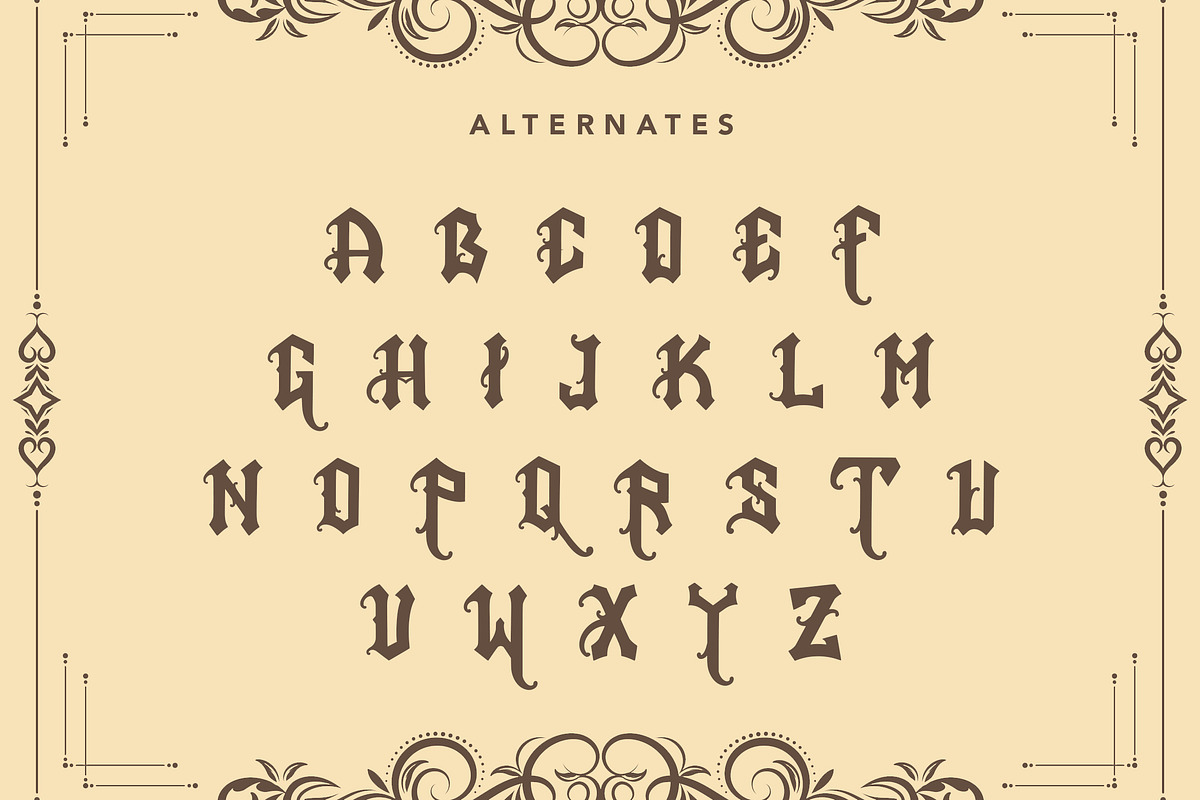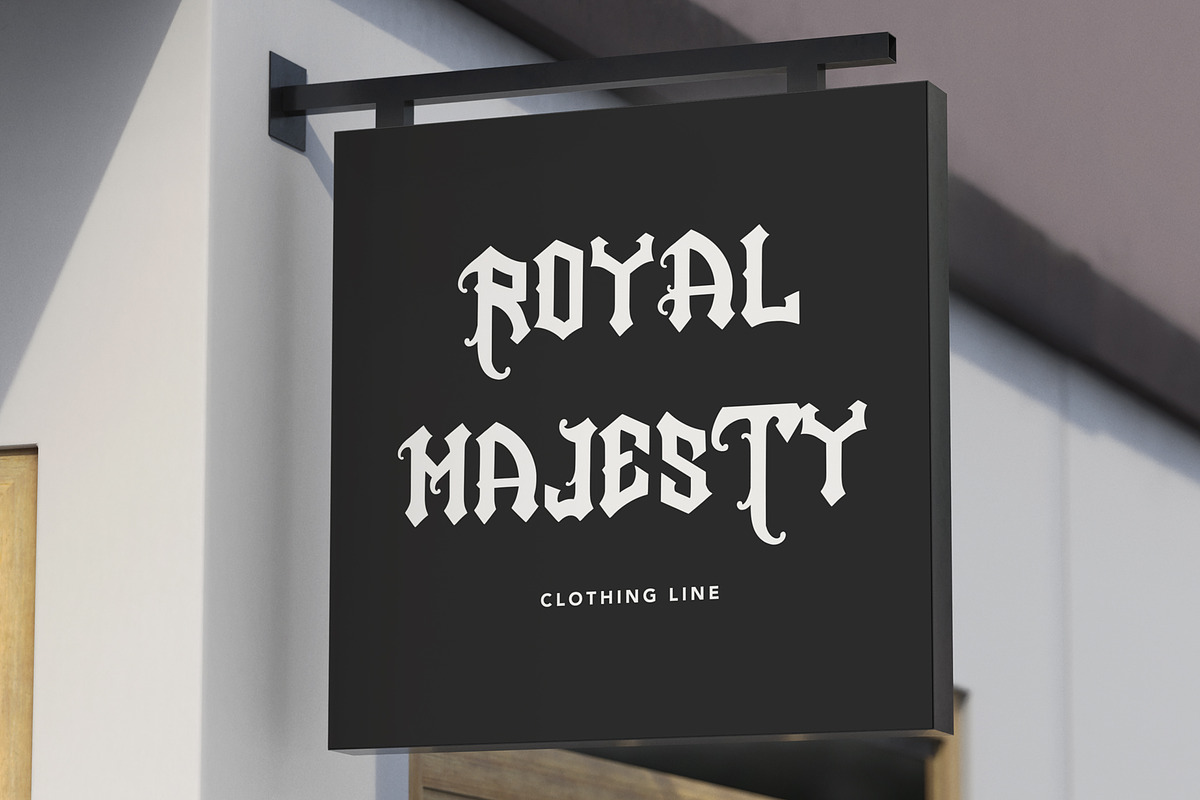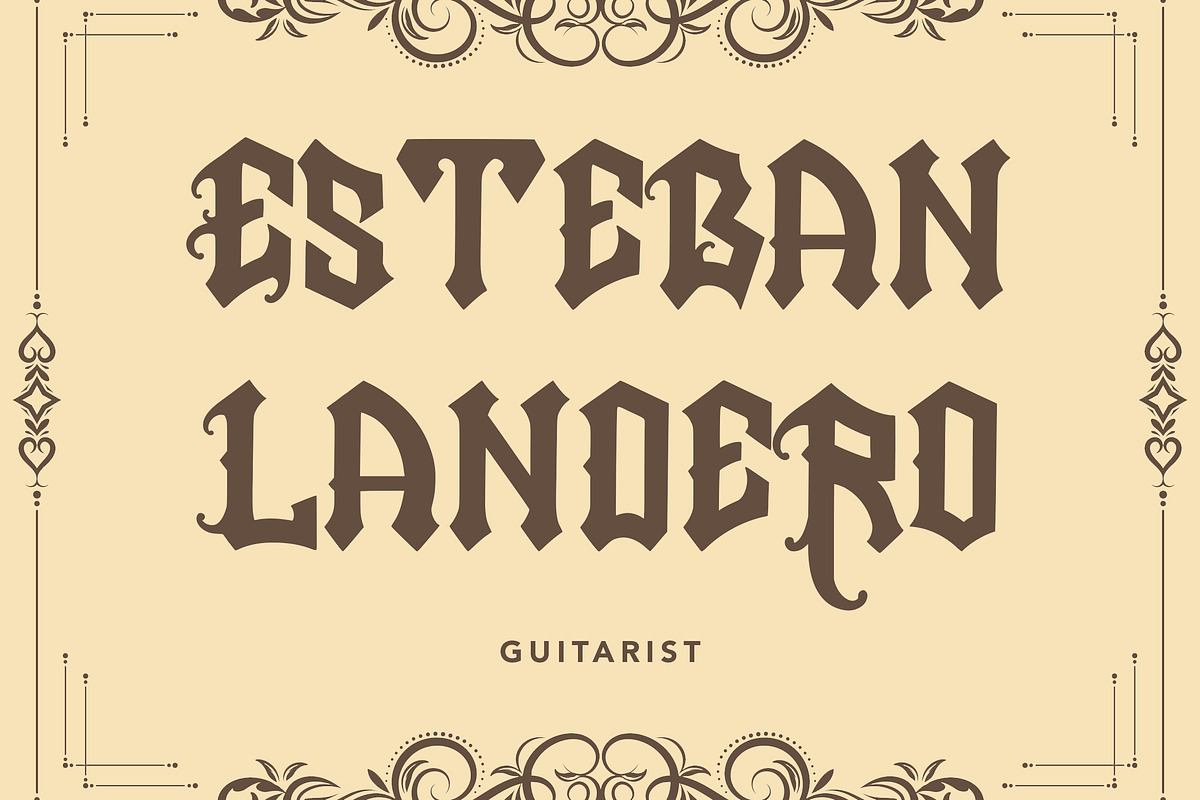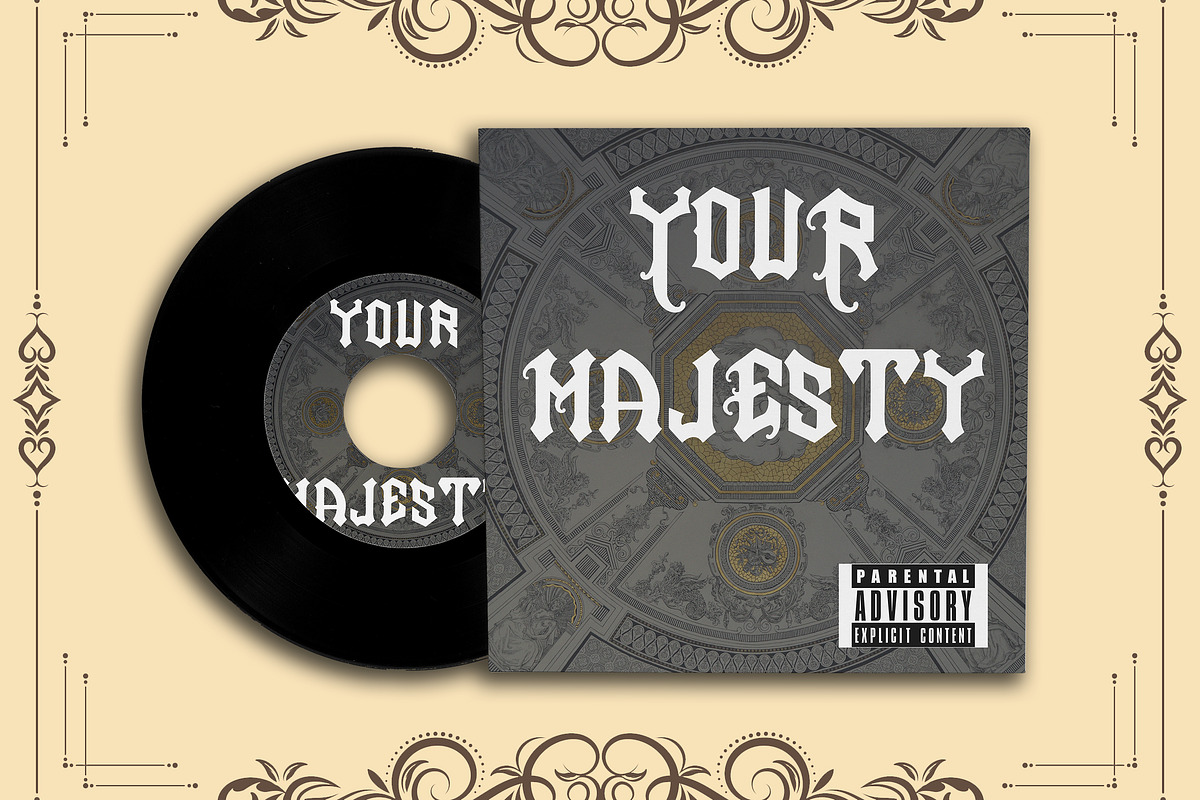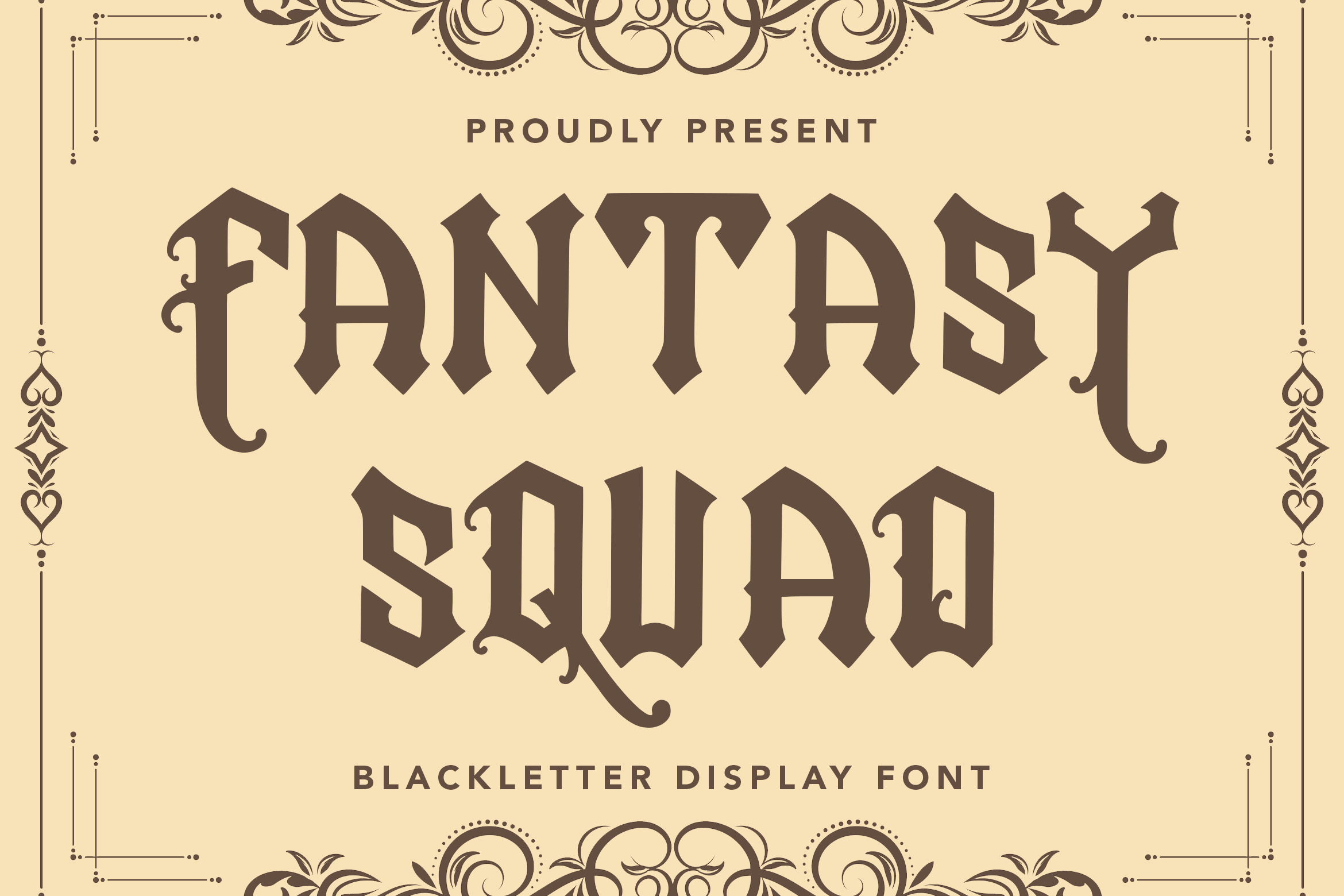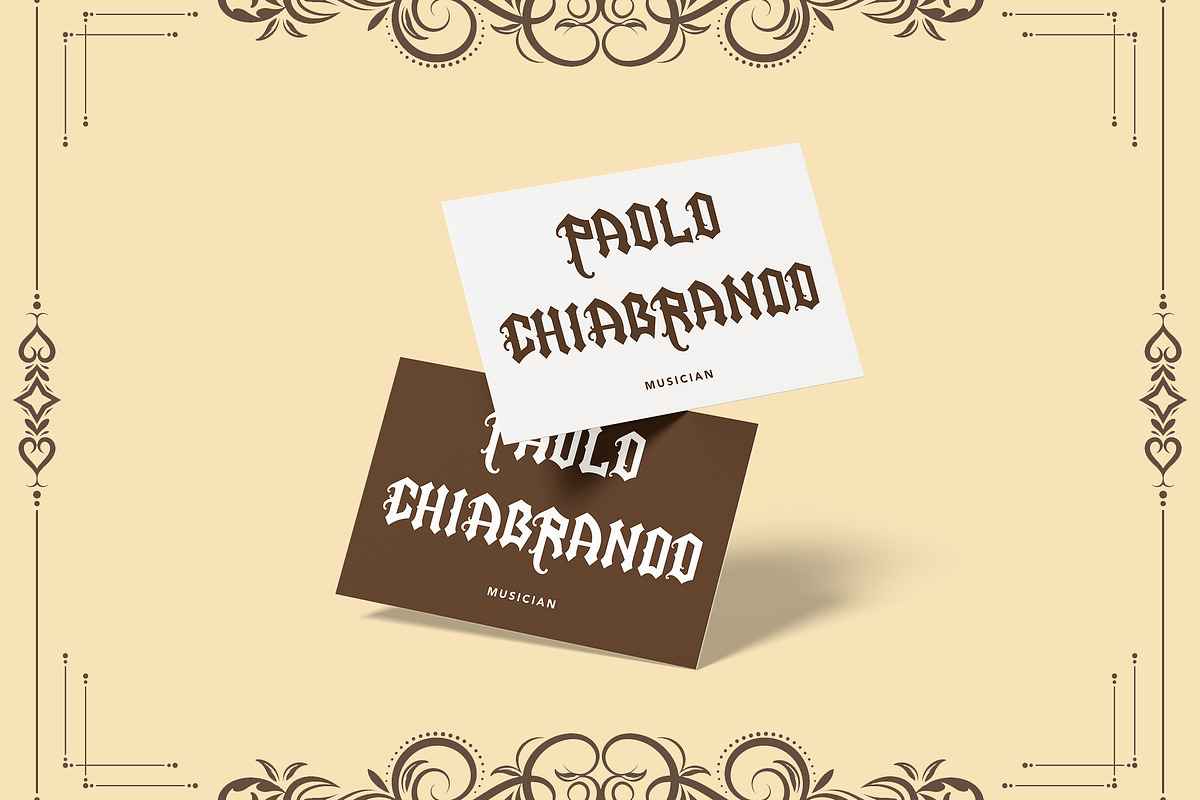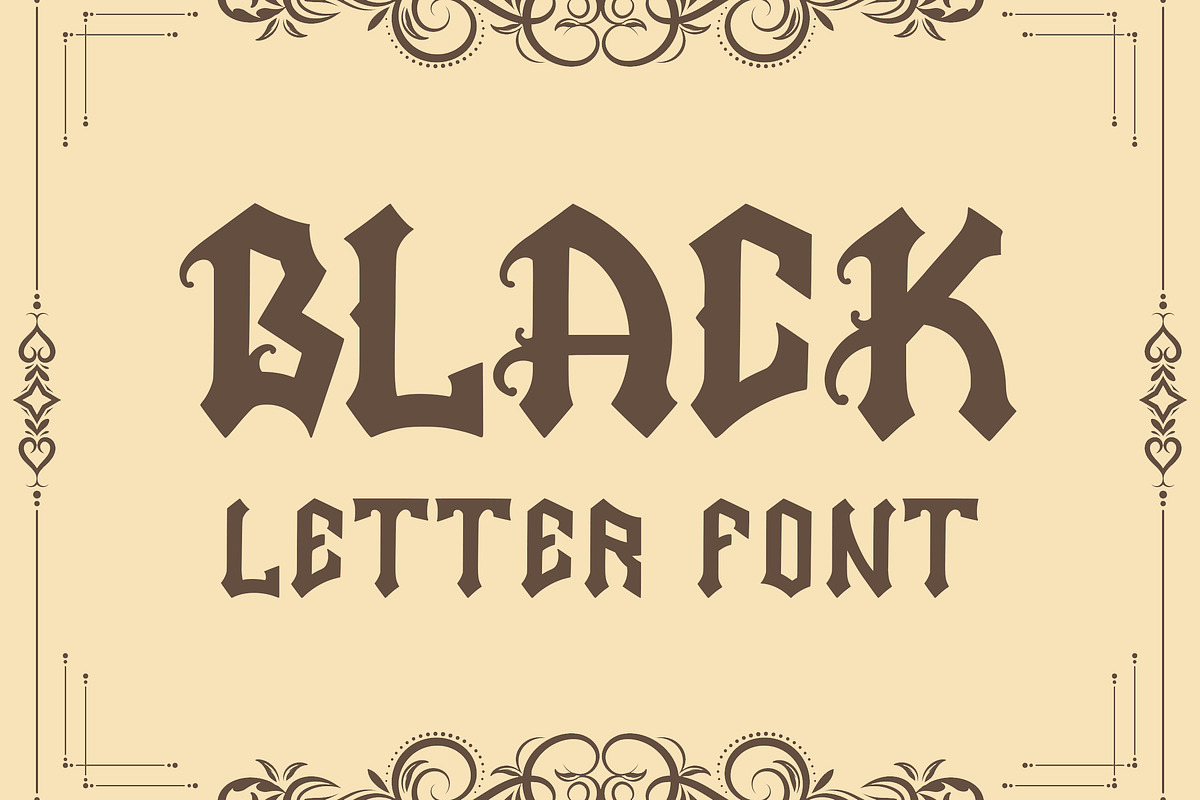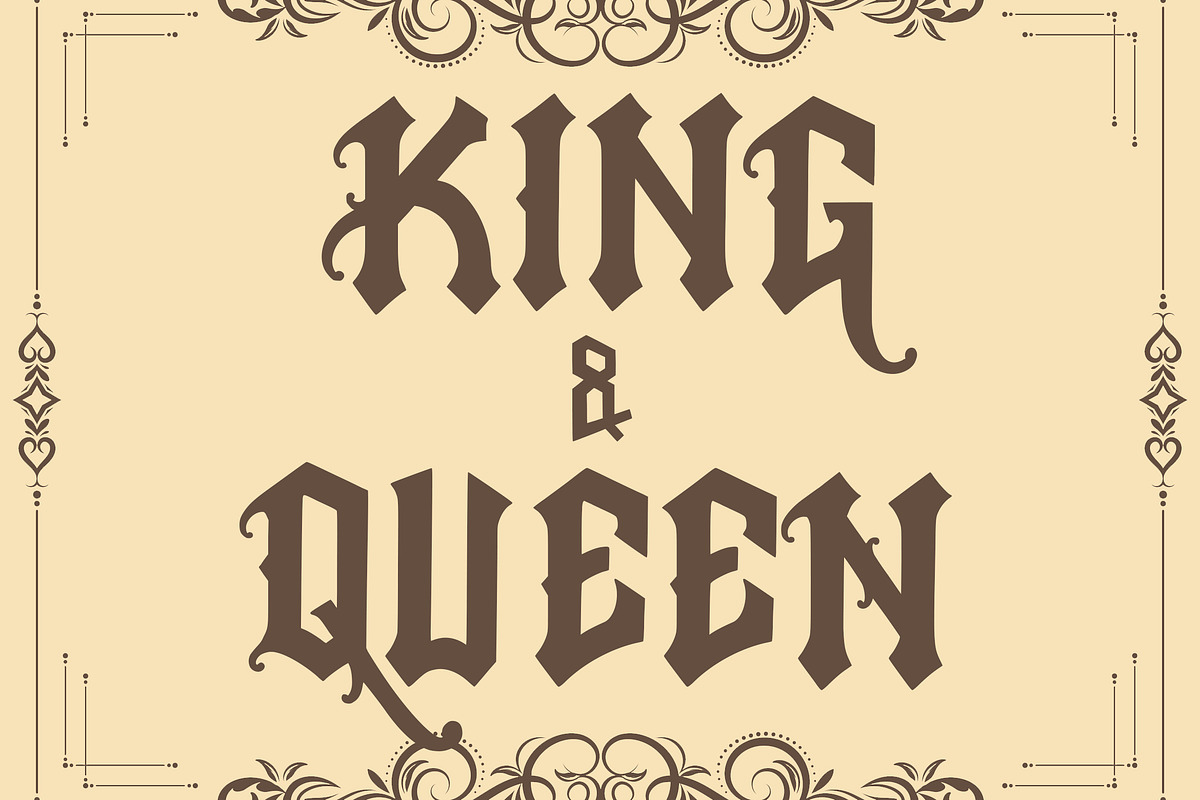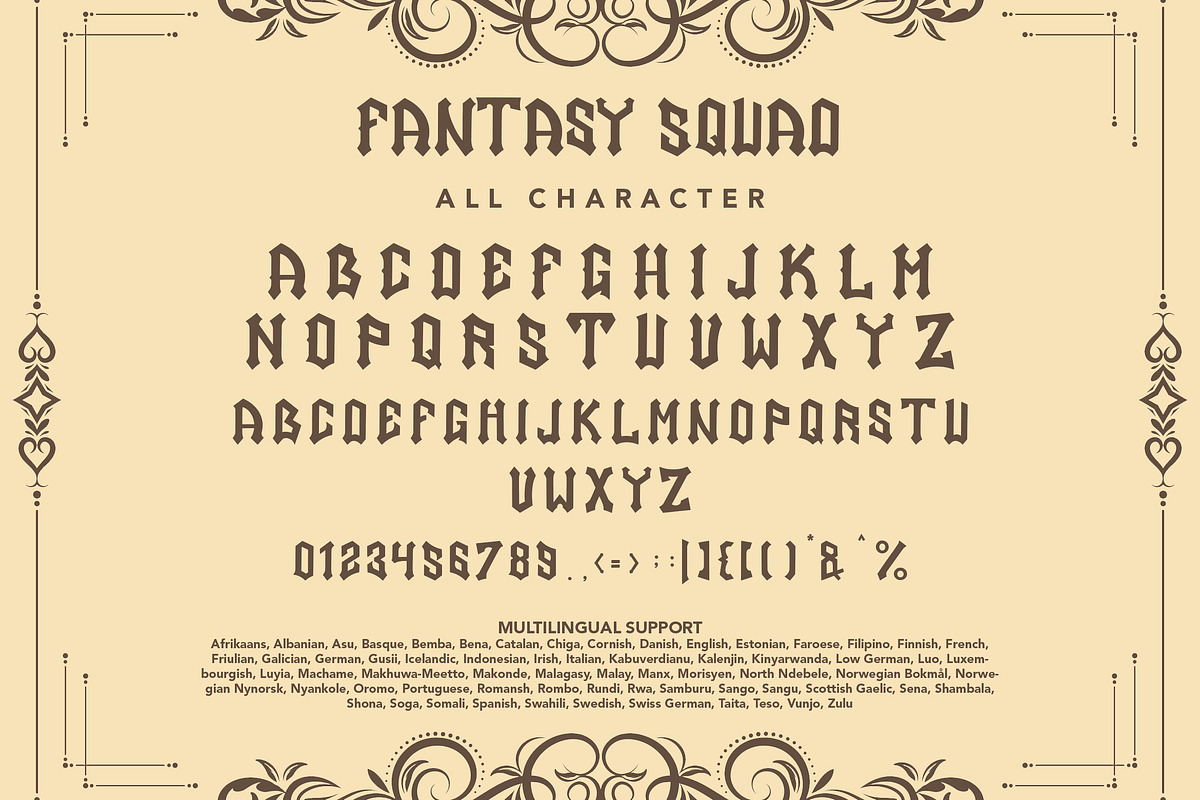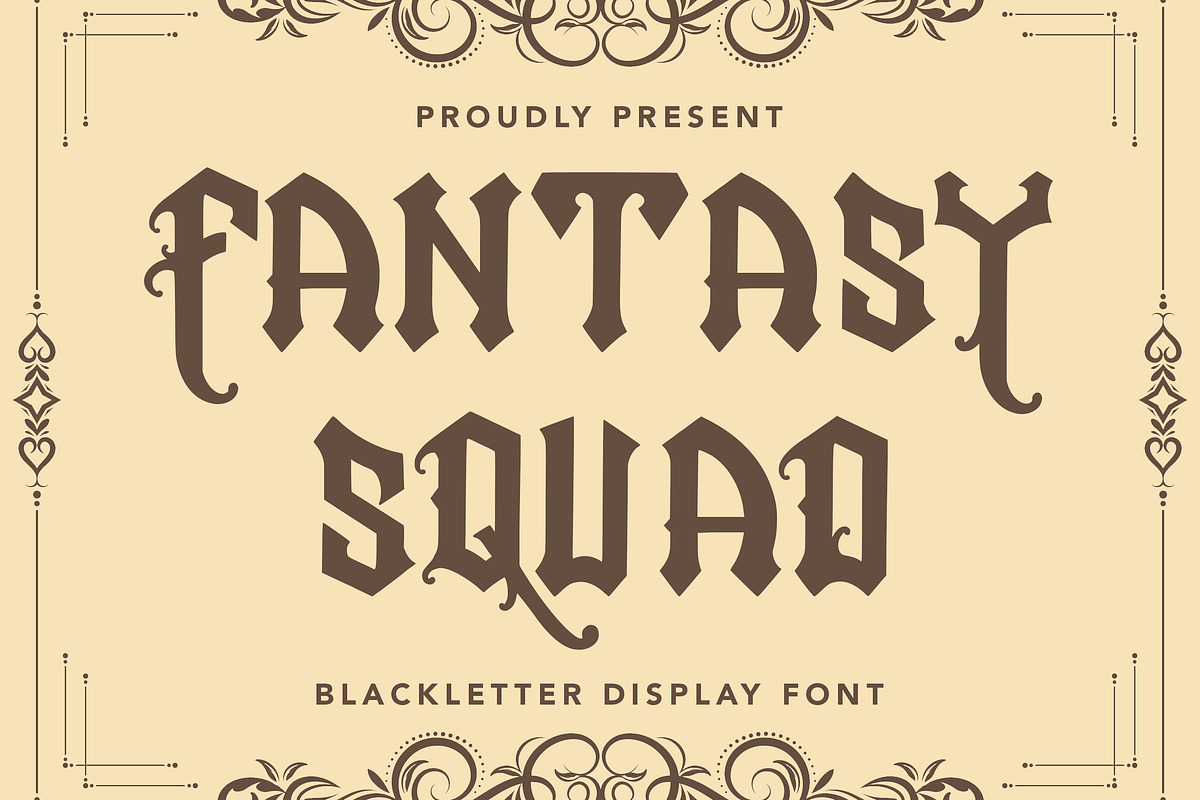
FantasySquad - Blackletter Font
FantasySquad - Blackletter Display Font contains a lowercase, uppercase, symbol, and also supports multi-language. There’s a lot of ligature in this font. FantasySquad - Blackletter Display Font also comes with ligatures, stylistic alternates and many more. this font suitable for fashion, branding, catalog and other design that you want.